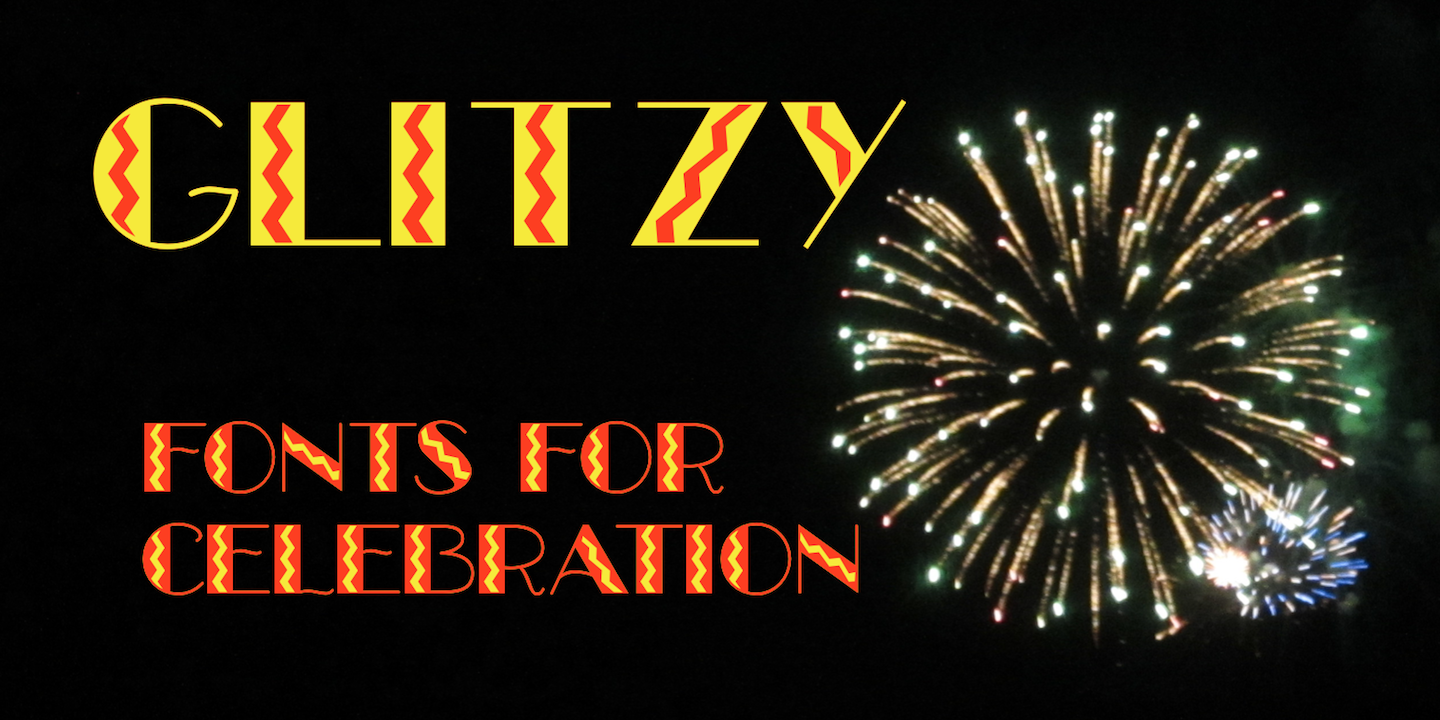
Designed by Robert Schenk, Glitzy is an art deco font family. This typeface has five styles and was published by Ingrimayne Type.
Glitzy is a caps-only font with extreme contrast. It was inspired by Art Deco typefaces, especially Broadway by Morris Fuller Benton, but Glitzy is not an attempt to reproduce that typeface. The letters on the lower-case keys differ slightly from the letters on the upper-case keys. The large black interiors invite decoration and the family includes four faces with interior decoration. These four faces with interior decoration can be used in layers with the base font to add color to lettering.
Foundry | Ingrimayne Type |
Released | 1990 |
Designer | Robert Schenk |